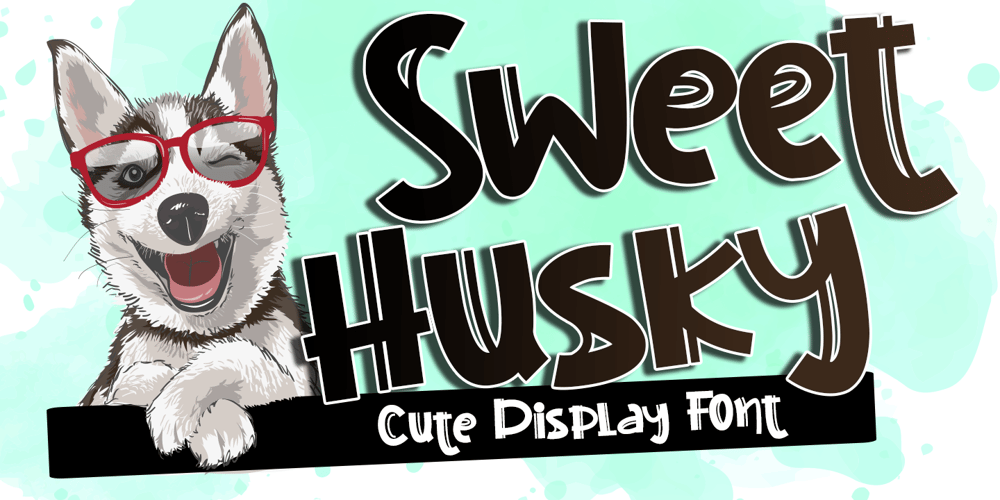
Sweet Husky Font Family was designed by Thomas Aradea and published by Letterara. Sweet Husky contains 1 styles and family package options. Sweet Husky is an original and cute display font. The unique style makes it incredibly fitting to a large pool of designs that will take your crafting projects to the next level! Your imagination and this font will make a perfect combination. Get inspired by its unique charm and create amazing greeting cards, apparel, book, logos, stationery, and much more!This font is PUA encoded which means you can access all of the cute glyphs with ease! It also features a wealth of including ligatures.